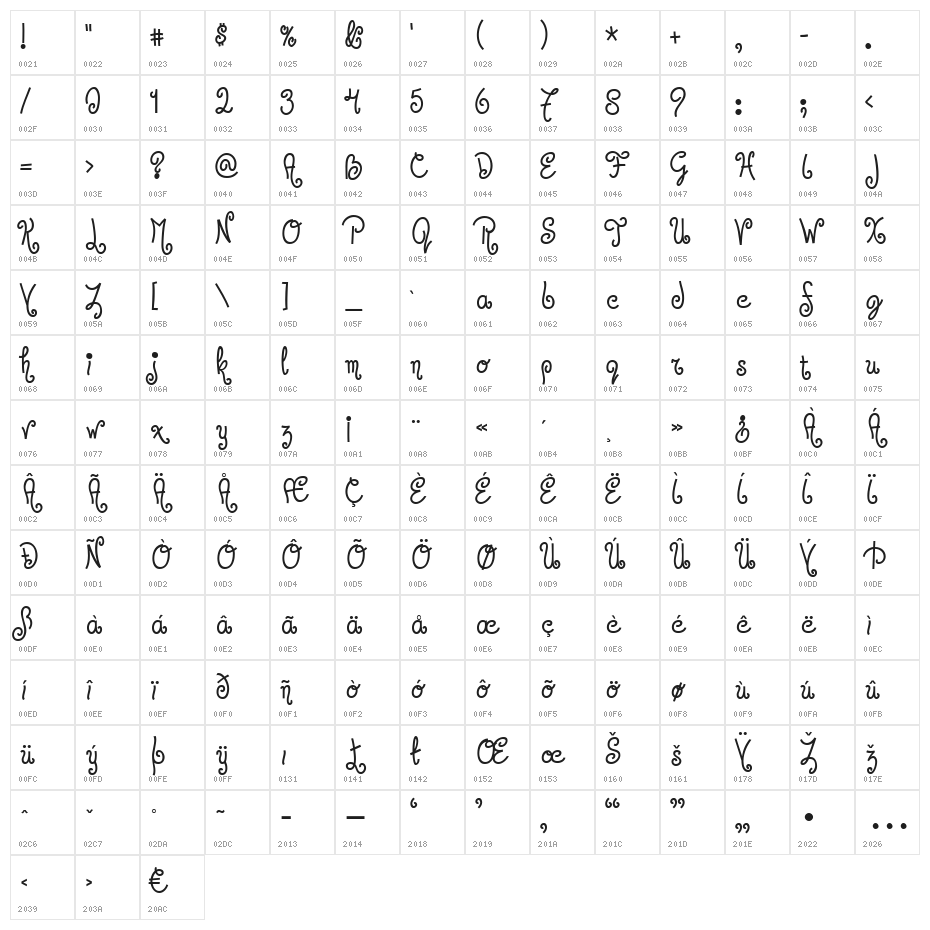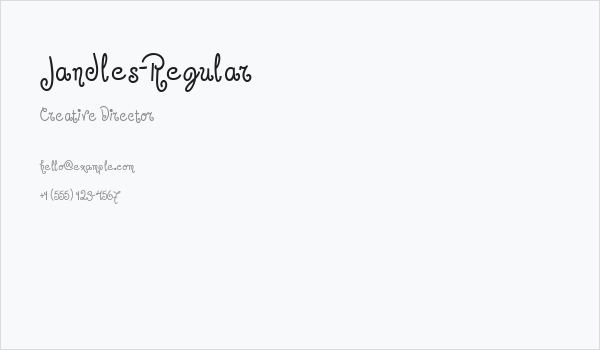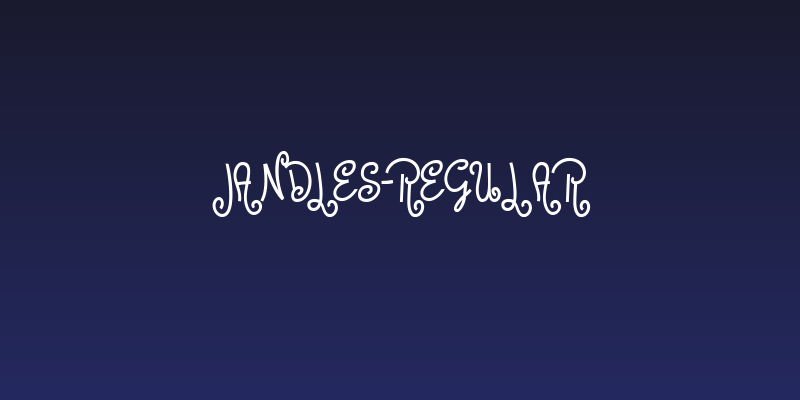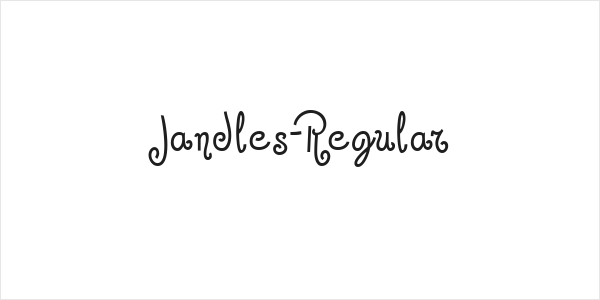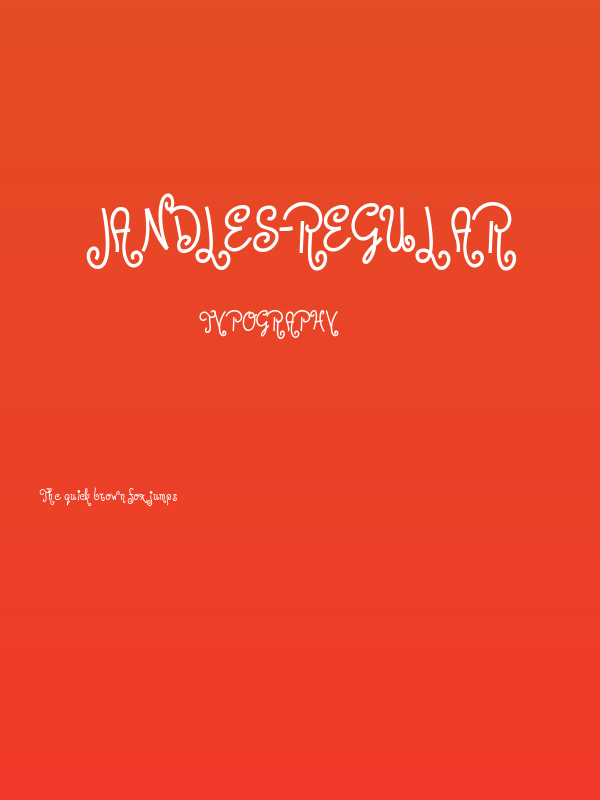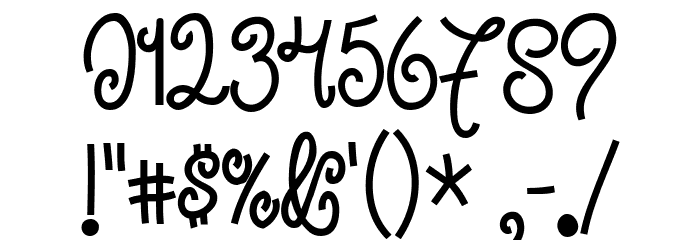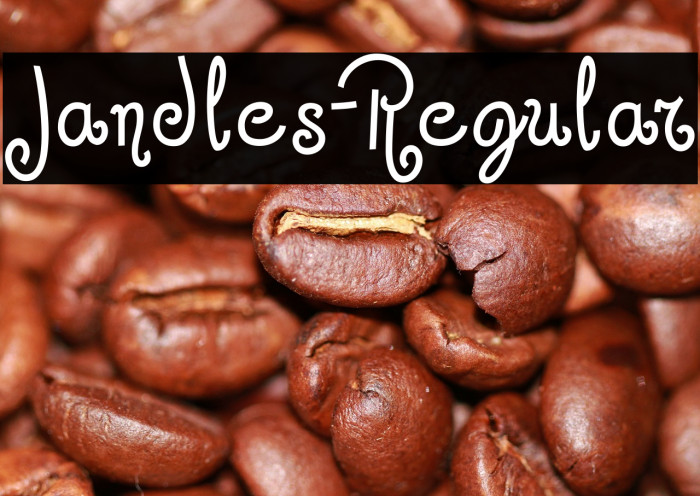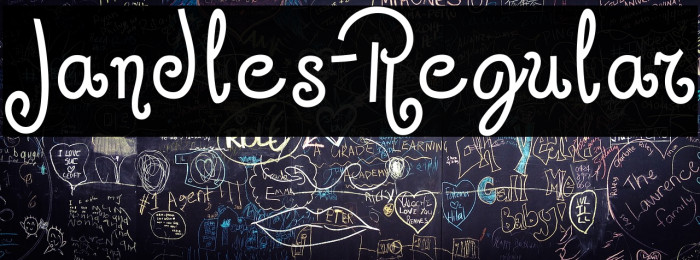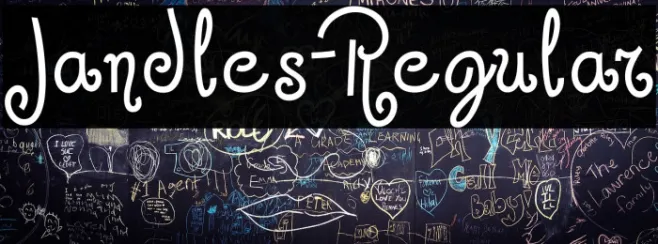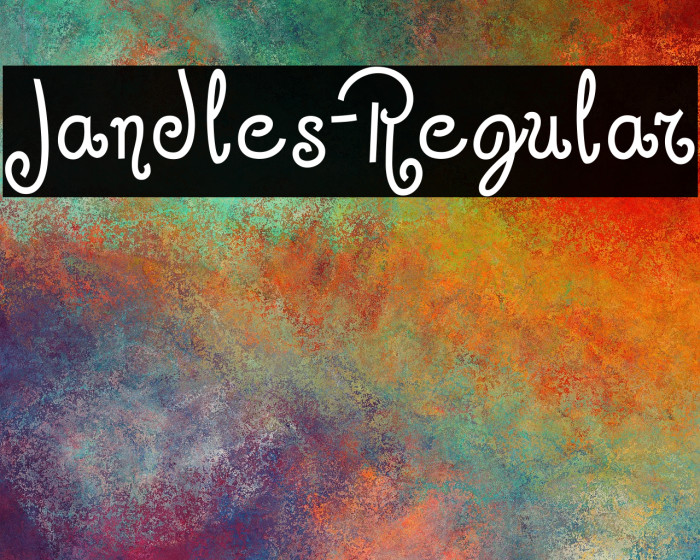
Jandles-Regular Font
Jandles-Regular Description
This font features a whimsical and playful design, characterized by its curly and looping strokes. The uppercase letters exhibit a unique flair with exaggerated curves and swirls, giving them a lively and animated appearance. The lowercase letters maintain this playful style, with some characters like 'g' and 'j' having distinct loops and tails. Numbers are equally stylized, with a consistent flow that matches the overall theme. Special characters are creatively integrated, maintaining the font's decorative nature. This font is perfect for projects that require a fun and engaging aesthetic.
| Proposed Projects | Ideal for children's books, greeting cards, playful branding, and creative posters. |